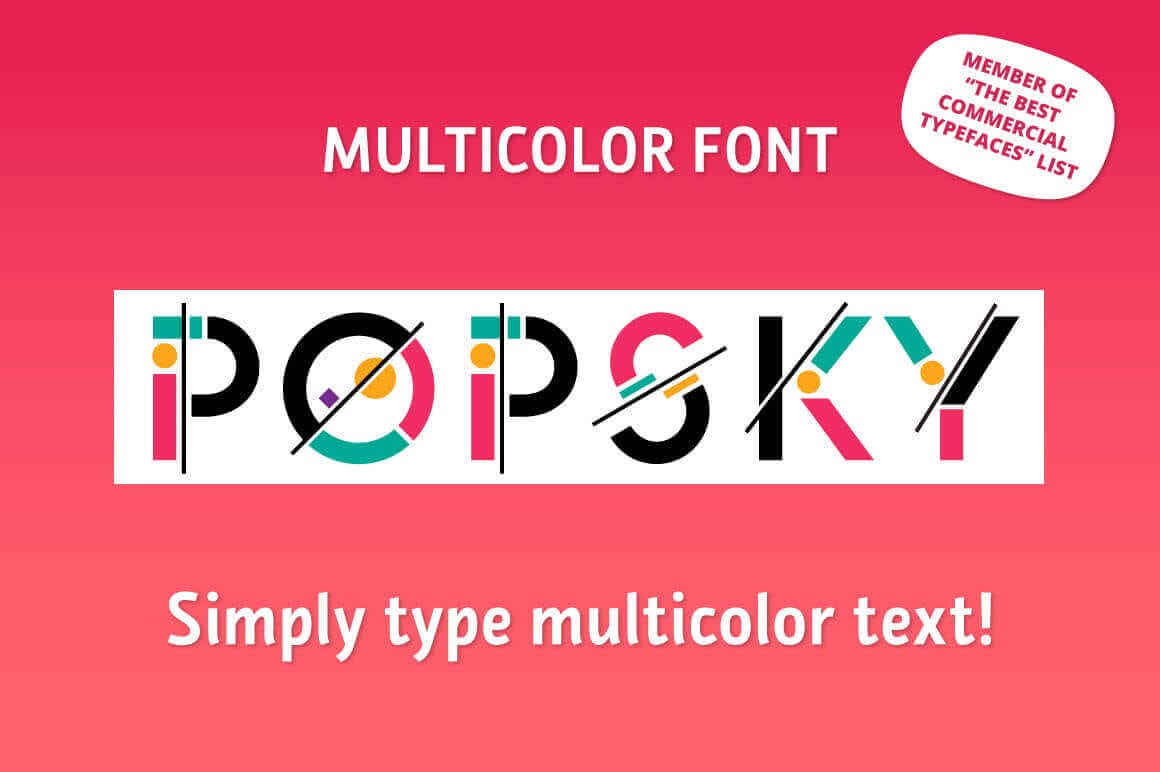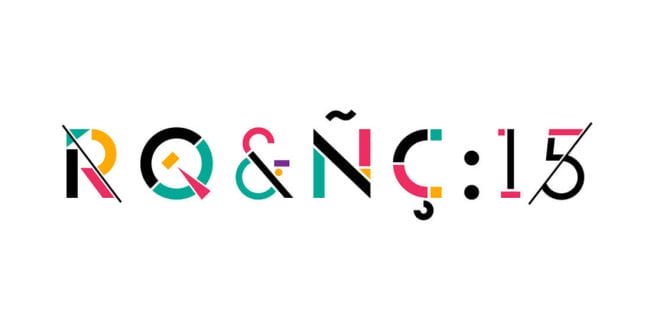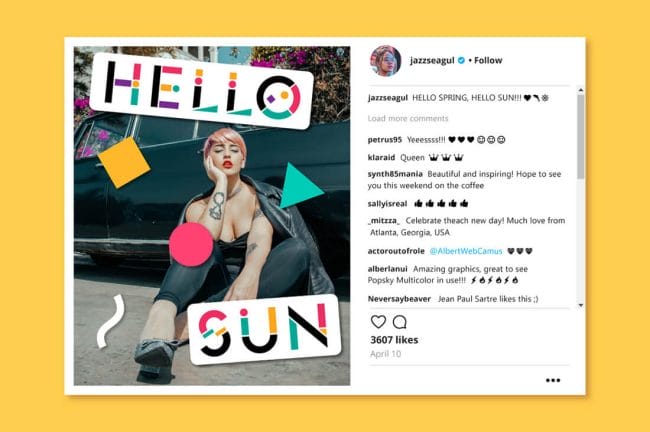
Talk about your real eye candy! Make your social media posts, logos or any other visual project truly “pop” with this utterly unique typeface. Popsky is a beautiful multi-colored font that’s been recognized in “The Best Commercial Typefaces” list. Grab your clients’ attention in the blink of an eye with this remarkable font.
- Beautifully vivid multicolor font.
- Two stylistic sets – with/without crossing lines, two number sets, punctuation and accented characters.
- Bonus: classic one-color version.
- Truly stand out with this unique, vibrant typeface.